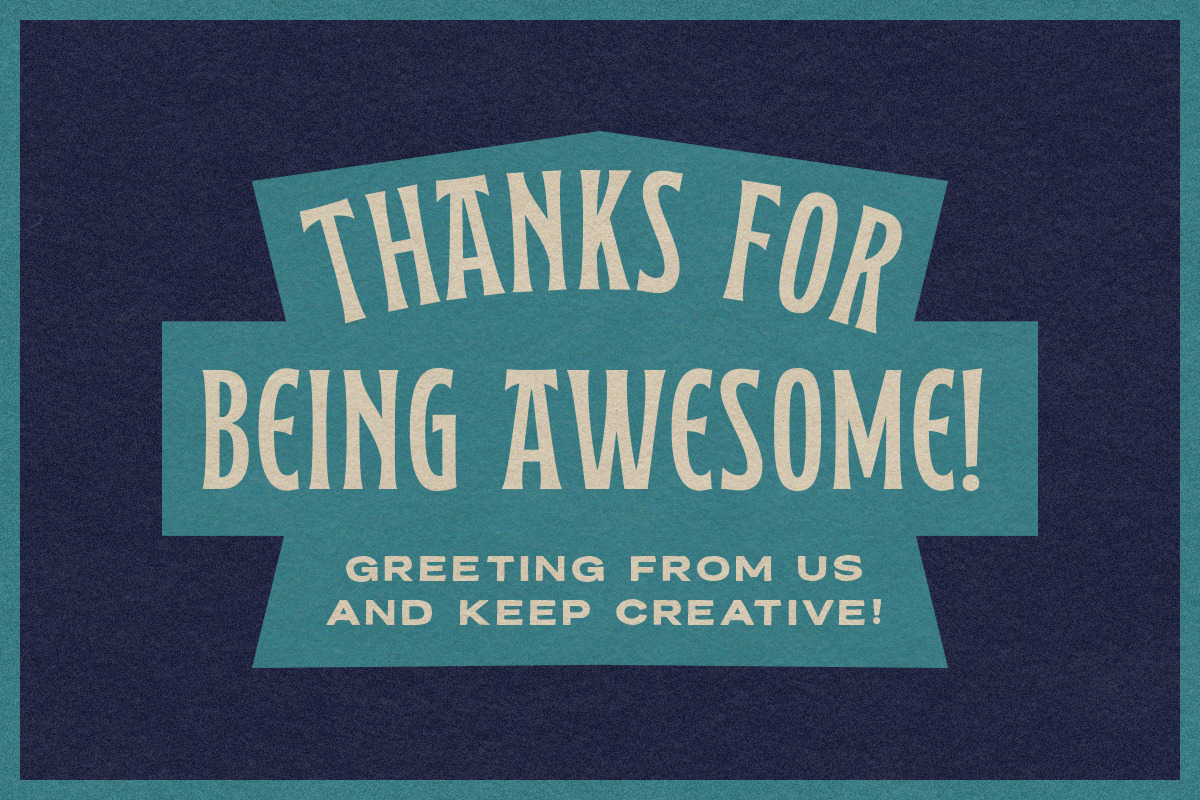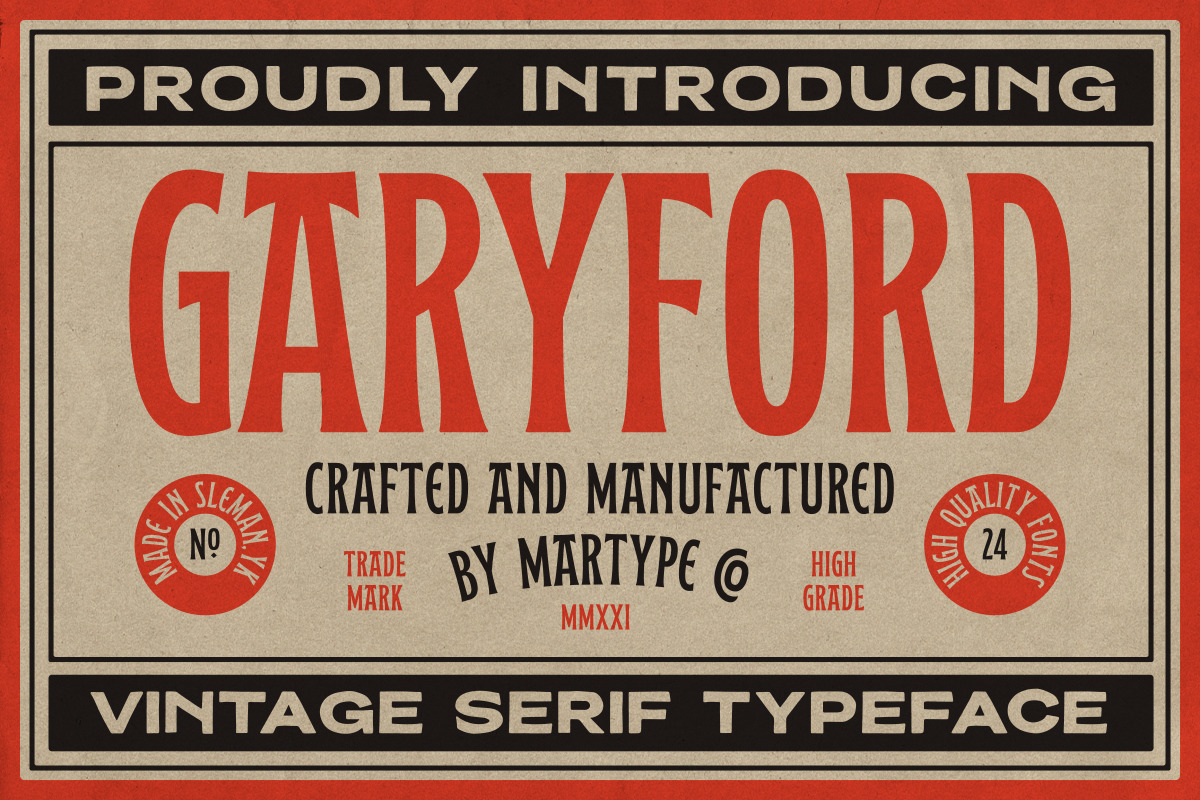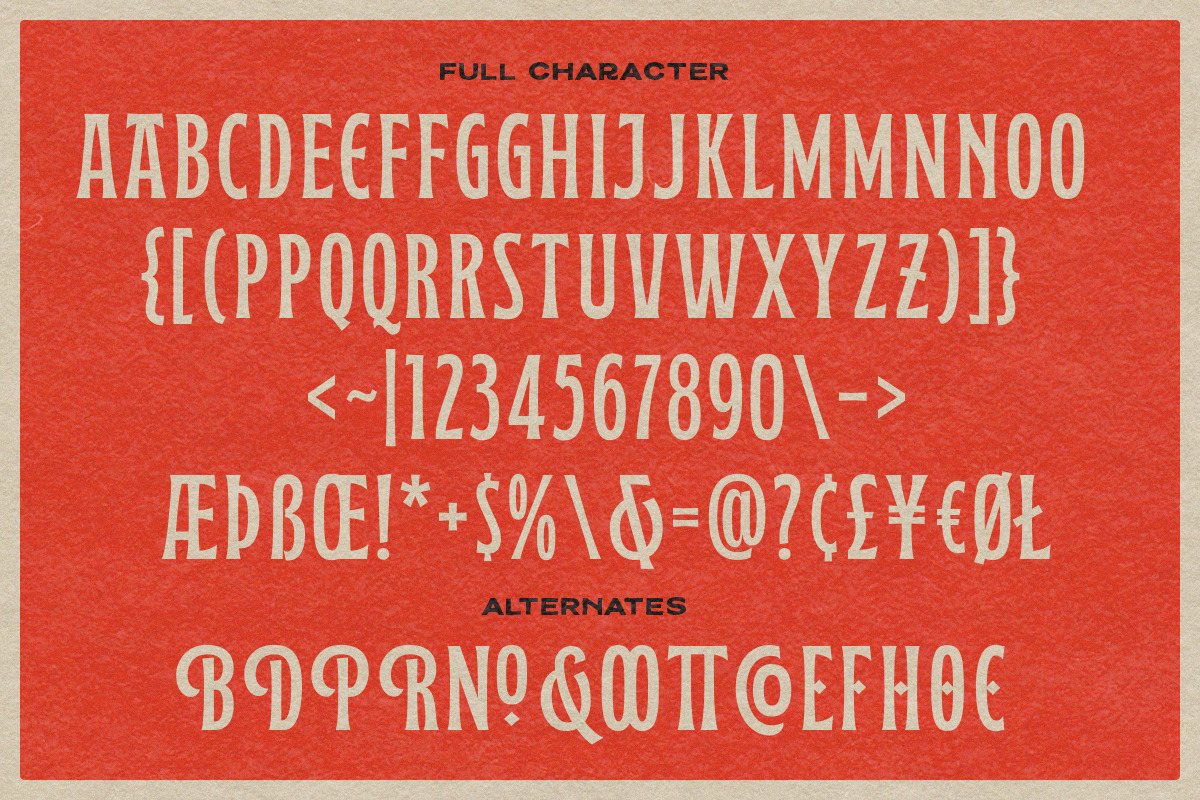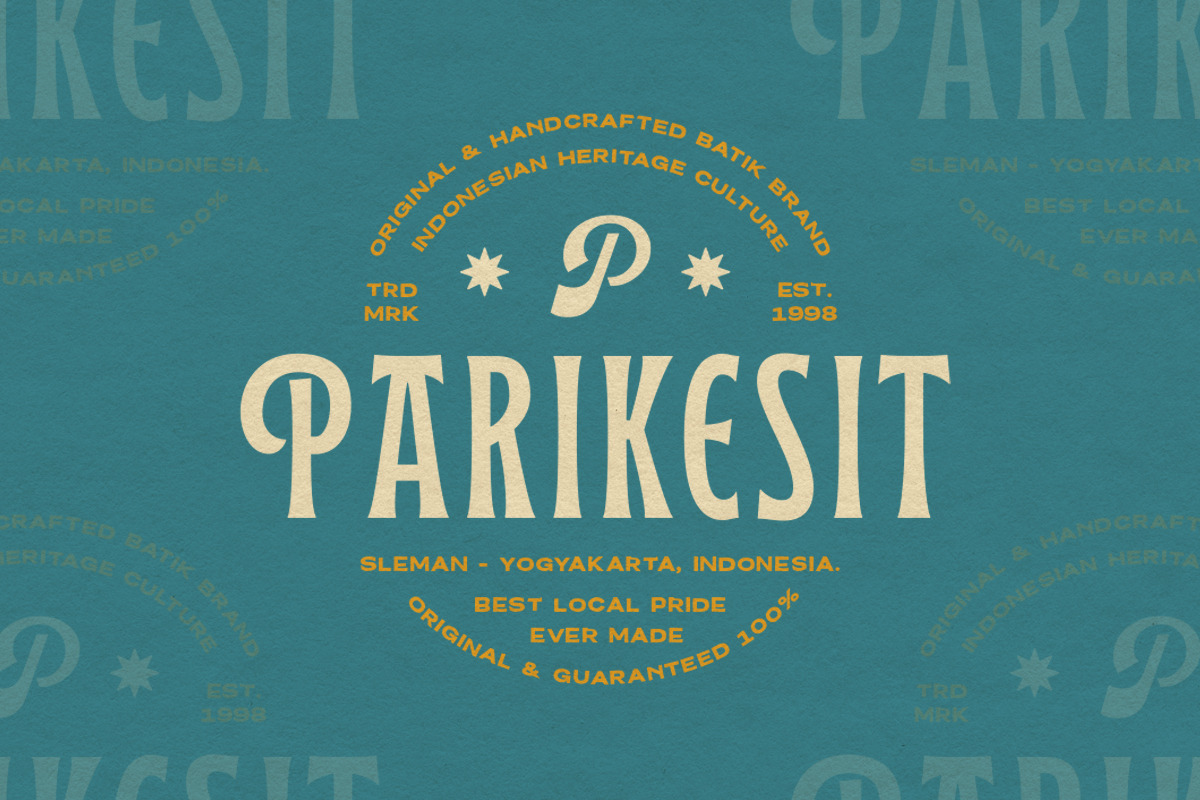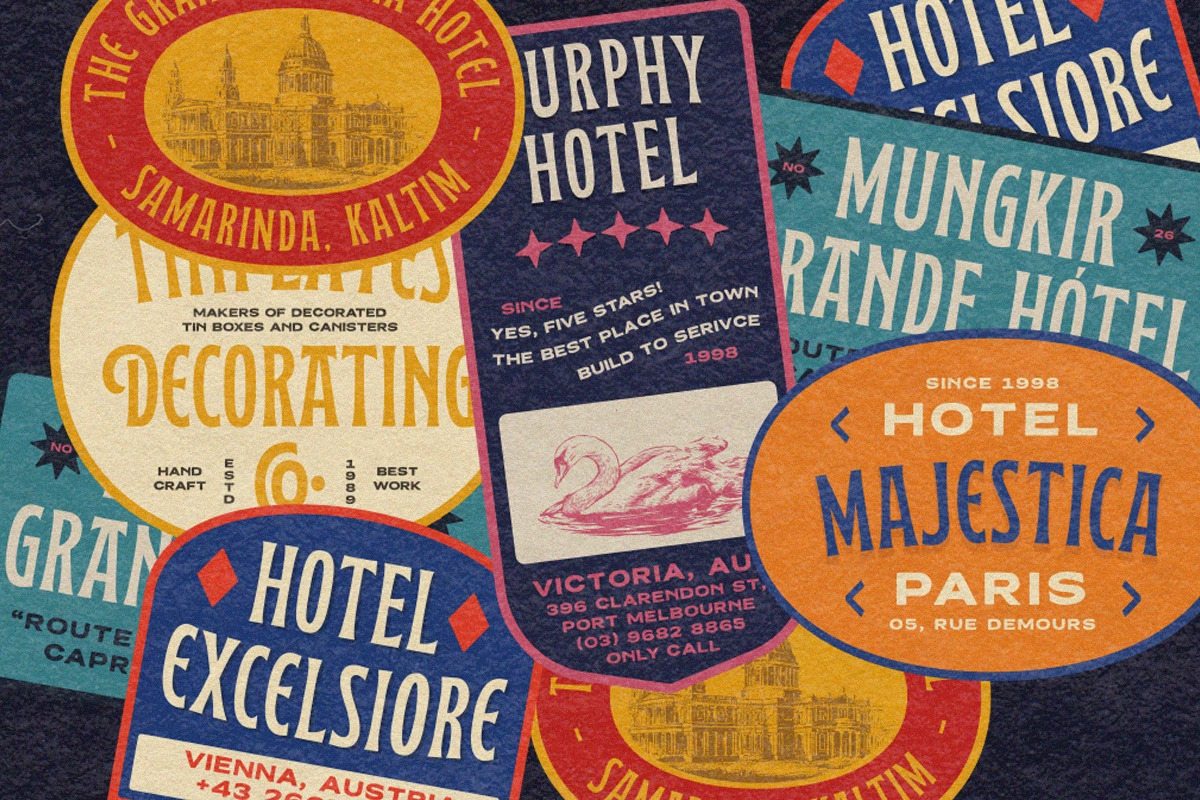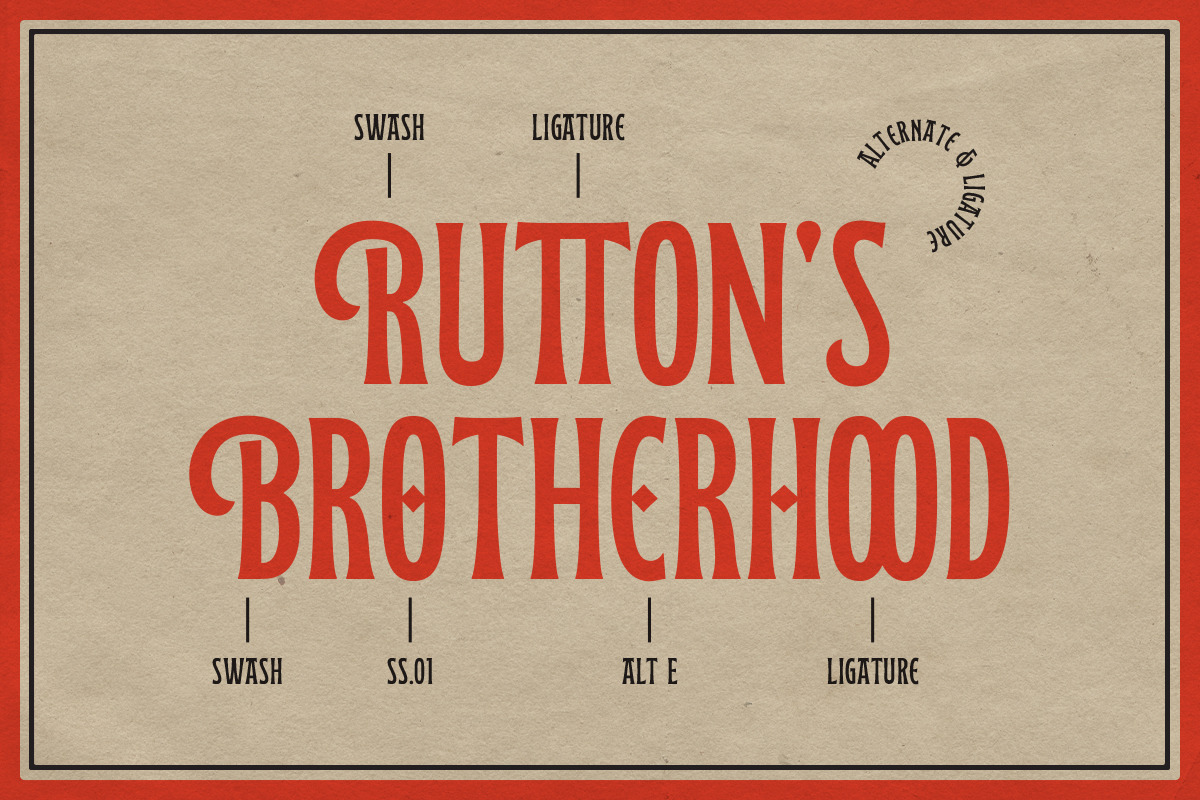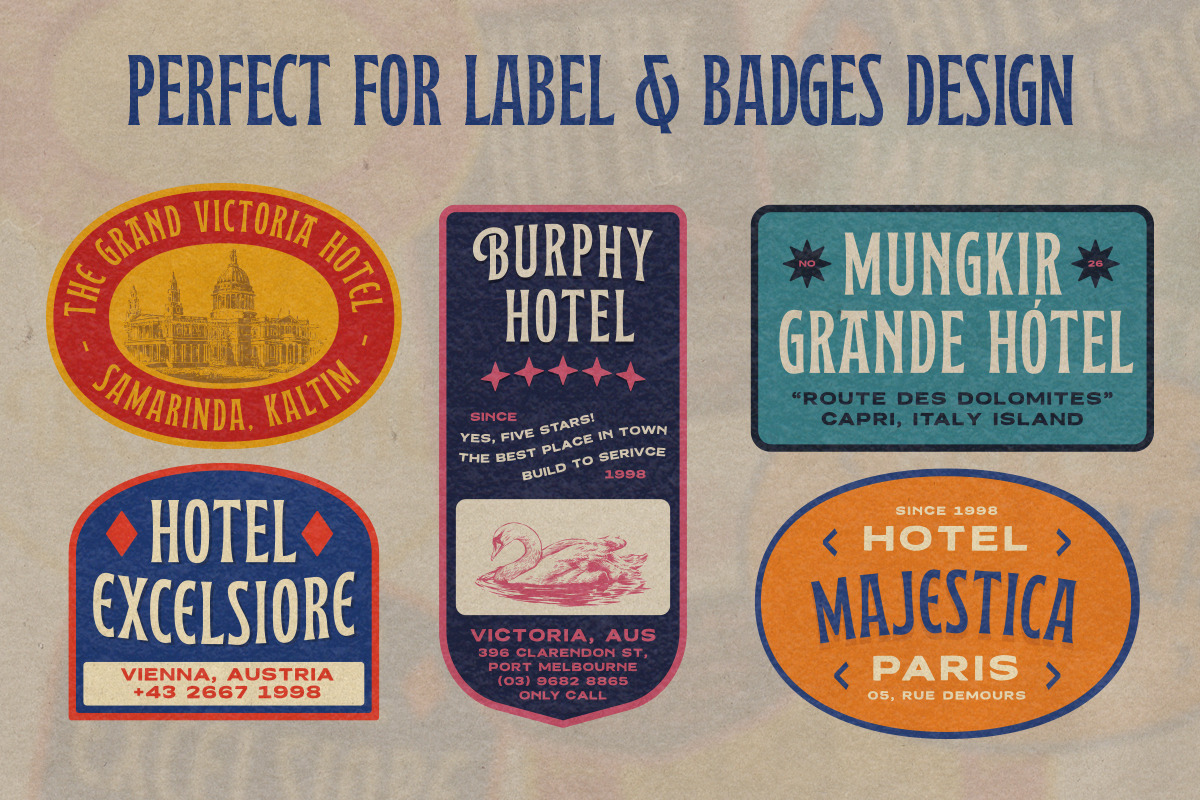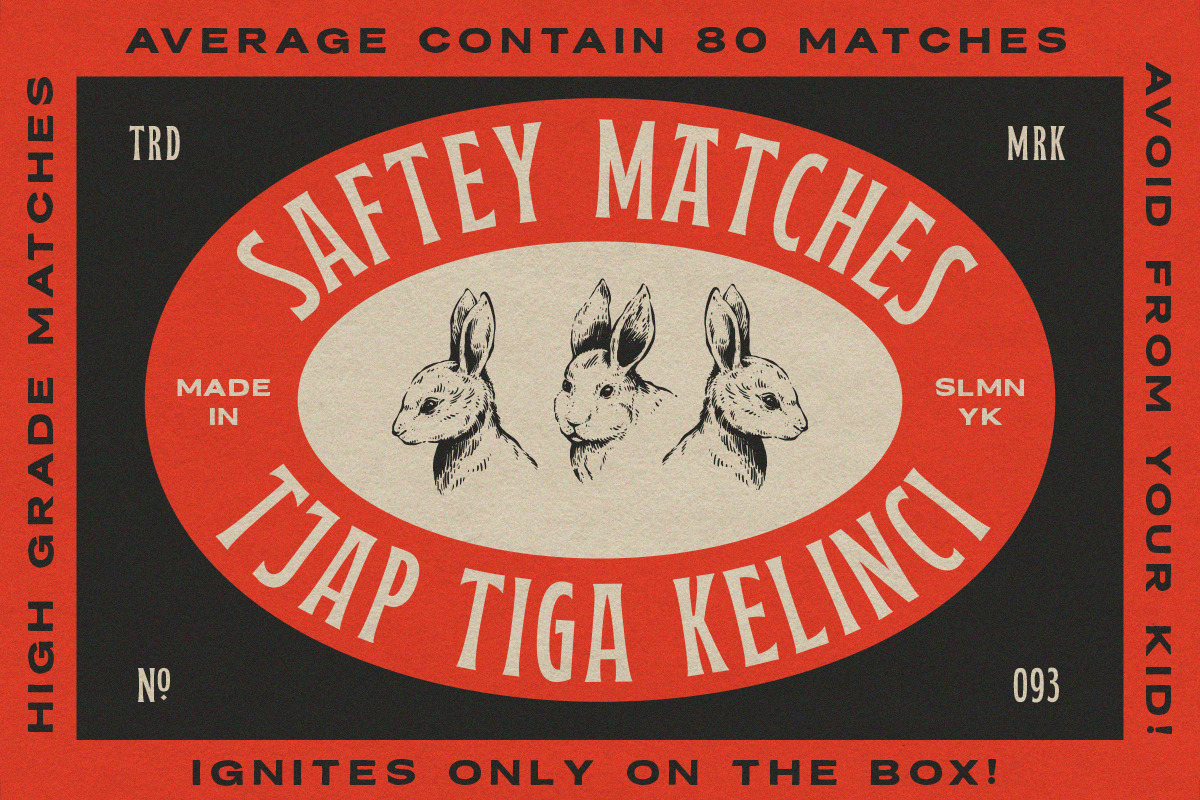
Garyford Vintage Display Font
GARYFORD VINTAGE SERIF FONT
Garyford is a Serif font designed with carefully handcrafted. Also suitable for branding, T-shirt, Classic Design, Logotype, and any project. Comes with a tons of ligature and alternates make your life more than comofortable, easier to design and free stress.
Multilingual Support support many different languages 20+ .